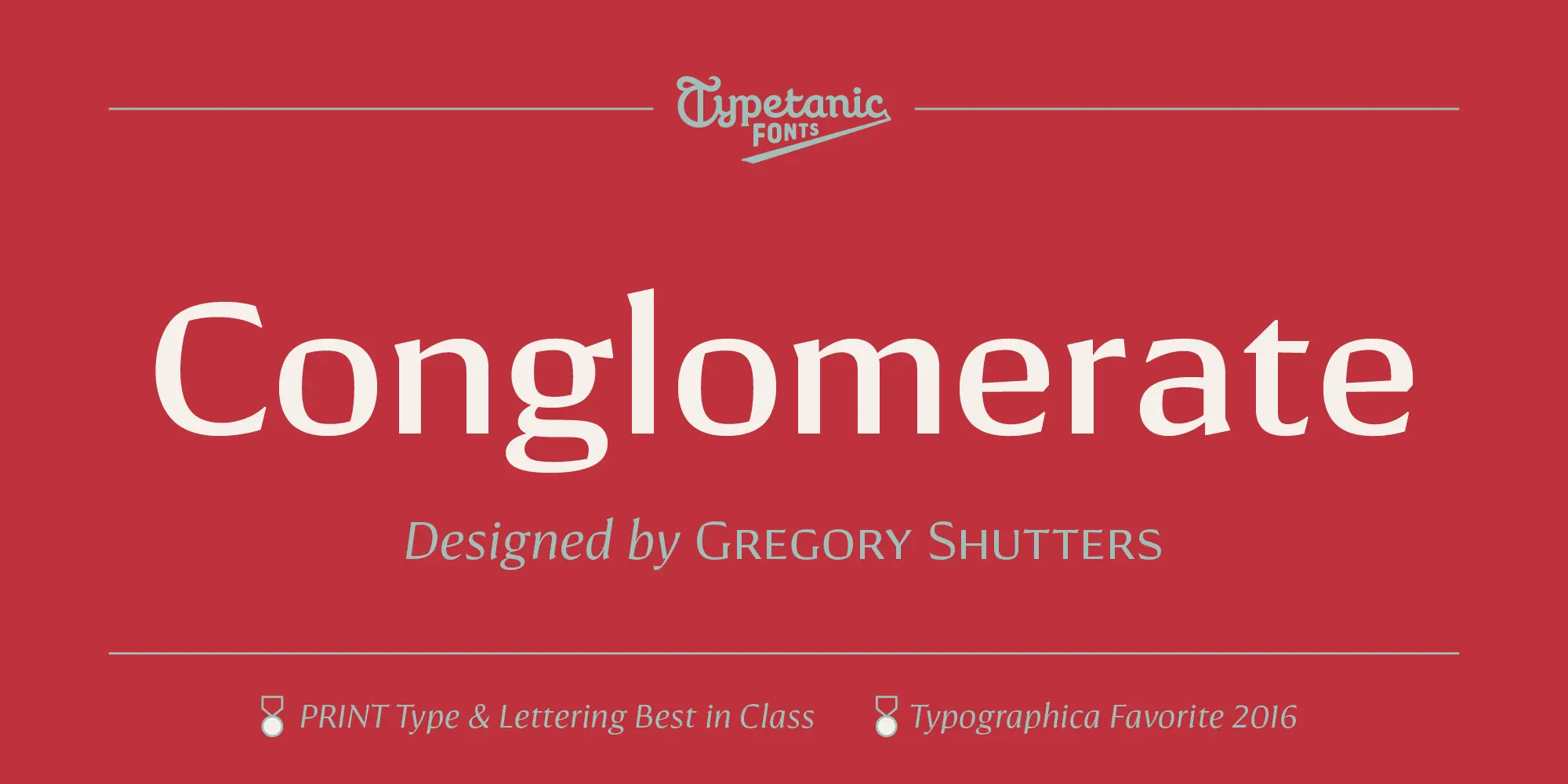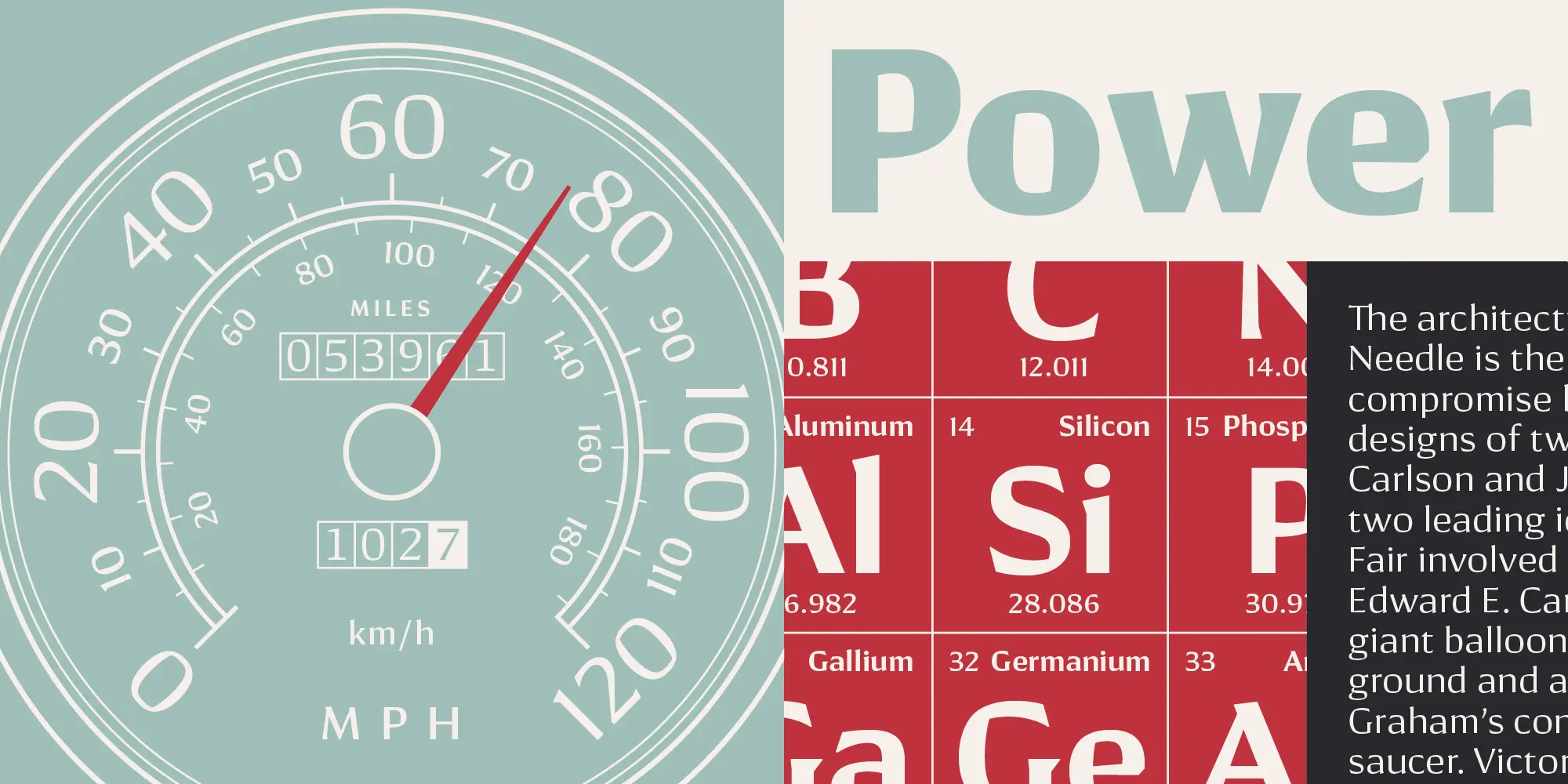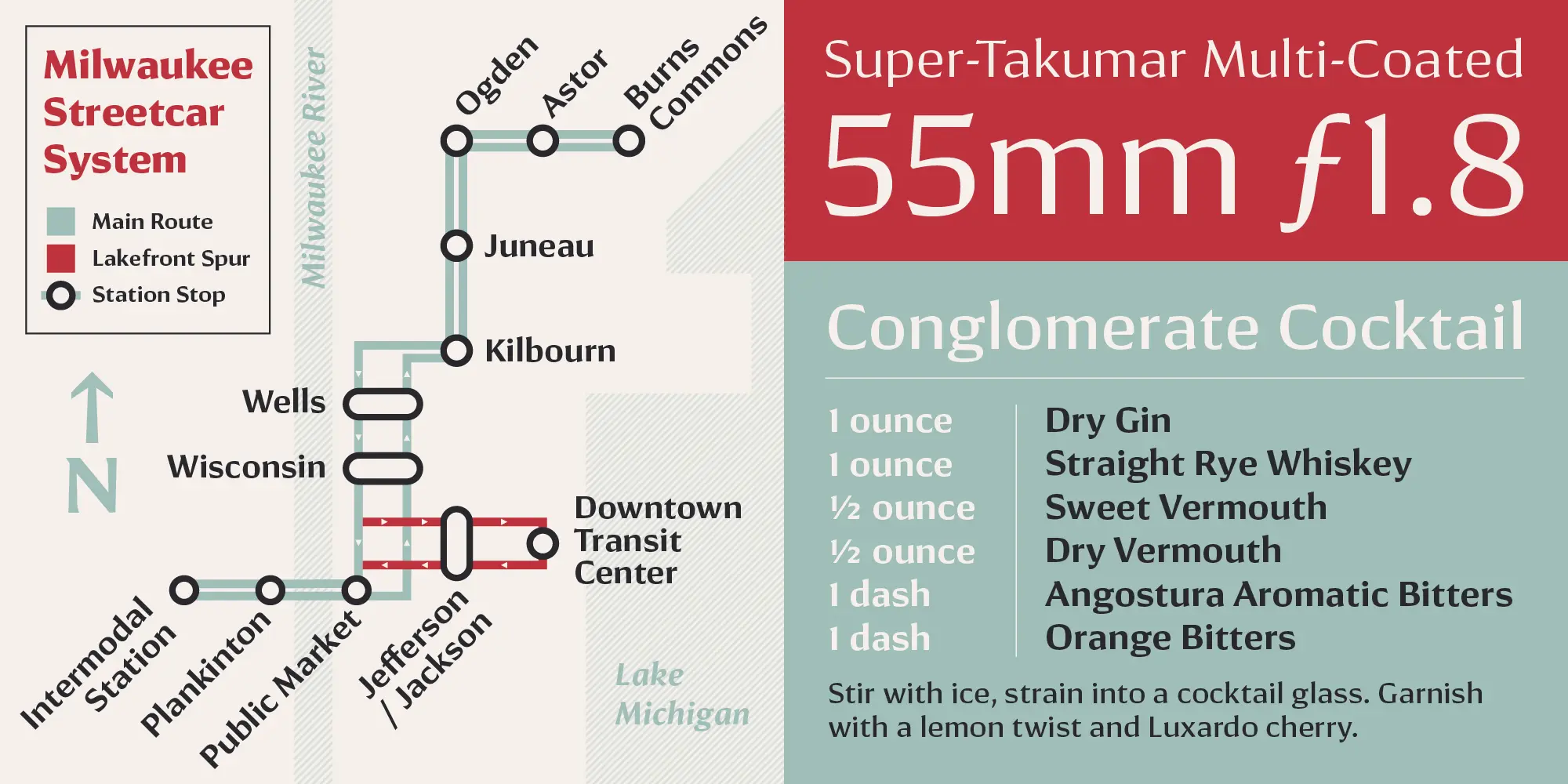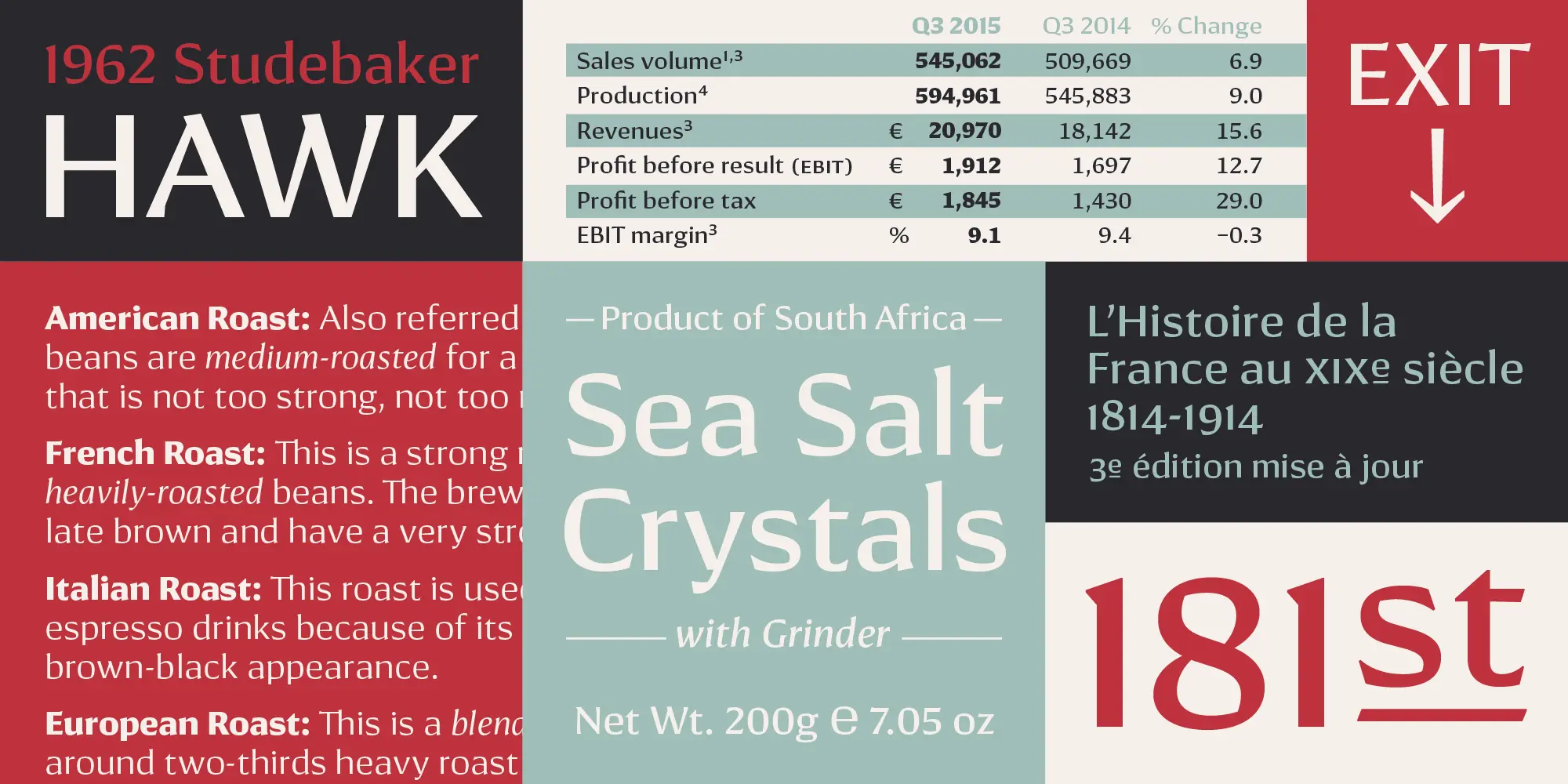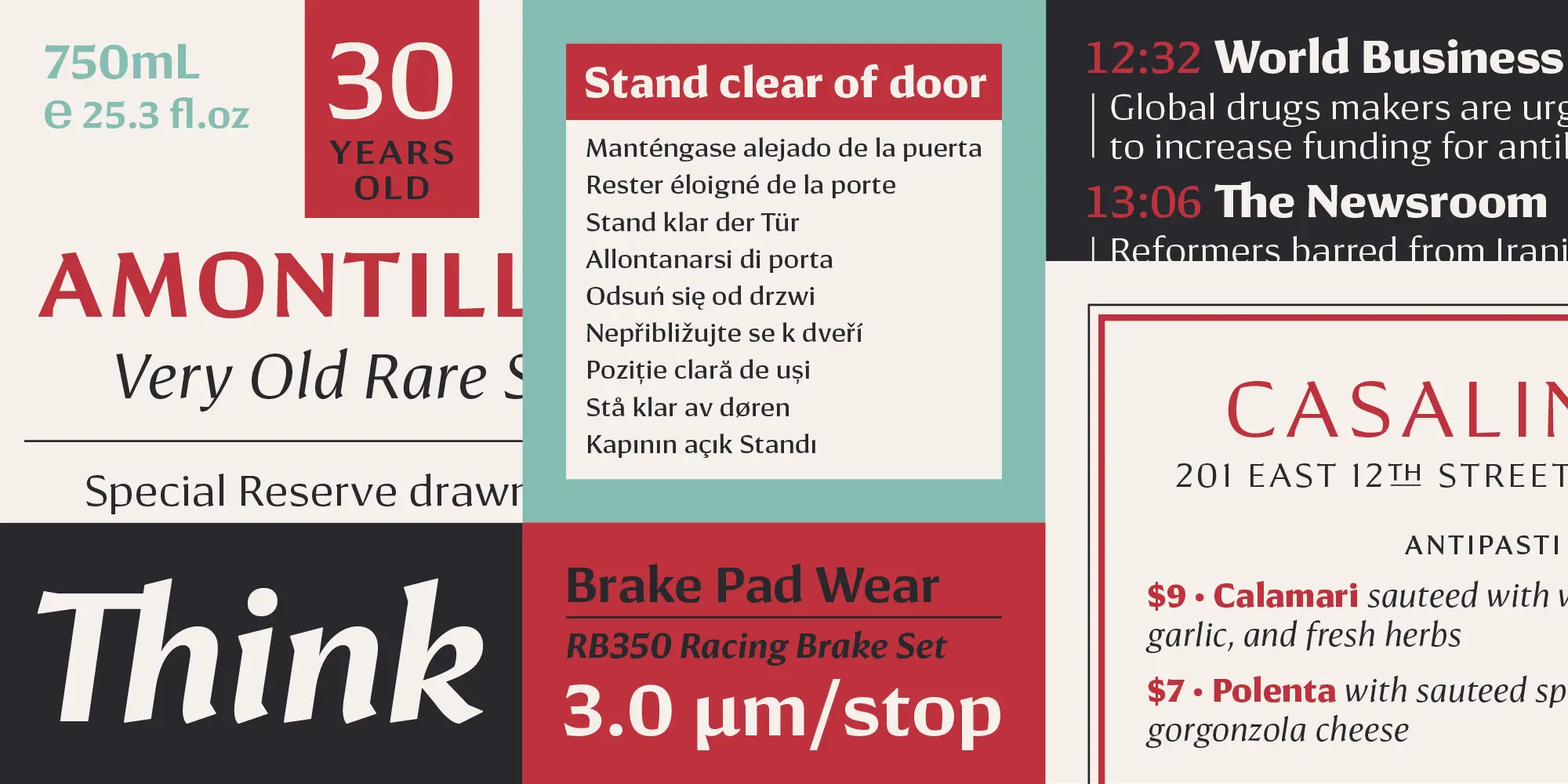
About Conglomerate
Conglomerate is somewhere between sans and serif, square and rounded, calligraphic and geometric — a subtle yet unorthodox blend of typographic traits resulting in a clean, unique, and versatile font family that does not lean too heavily on any particular historical model.
Conglomerate features large, open counters for legibility in text yet crisp, sharp details that sparkle at display sizes. Each style also contains an extensive set of OpenType features, including small caps, proportional, tabular, lining, and old style numerals, case-sensitive punctuation, ligatures, arbitrary fractions, localized forms, and elevated, underlined ordinal indicators for English, French, Spanish, Italian, and other languages.
Conglomerate began as a study as part of the Type@Cooper Extended program and was later released commercially. Conglomerate won a PRINT Magazine Typography and Lettering “Best in Class” award for type design. It was also listed as one of Typographica’s favorite typefaces in 2016.
OpenType Features
• Common Ligatures
• Discretionary Ligatures
• Fractions
• Lining Numerals
• Old Style Numerals
• Ordinal Numerals
• Proportional Numerals
• Small Capitals
• Small Capitals for Capitals
• Subscript
• Superscript
• Tabular Numerals